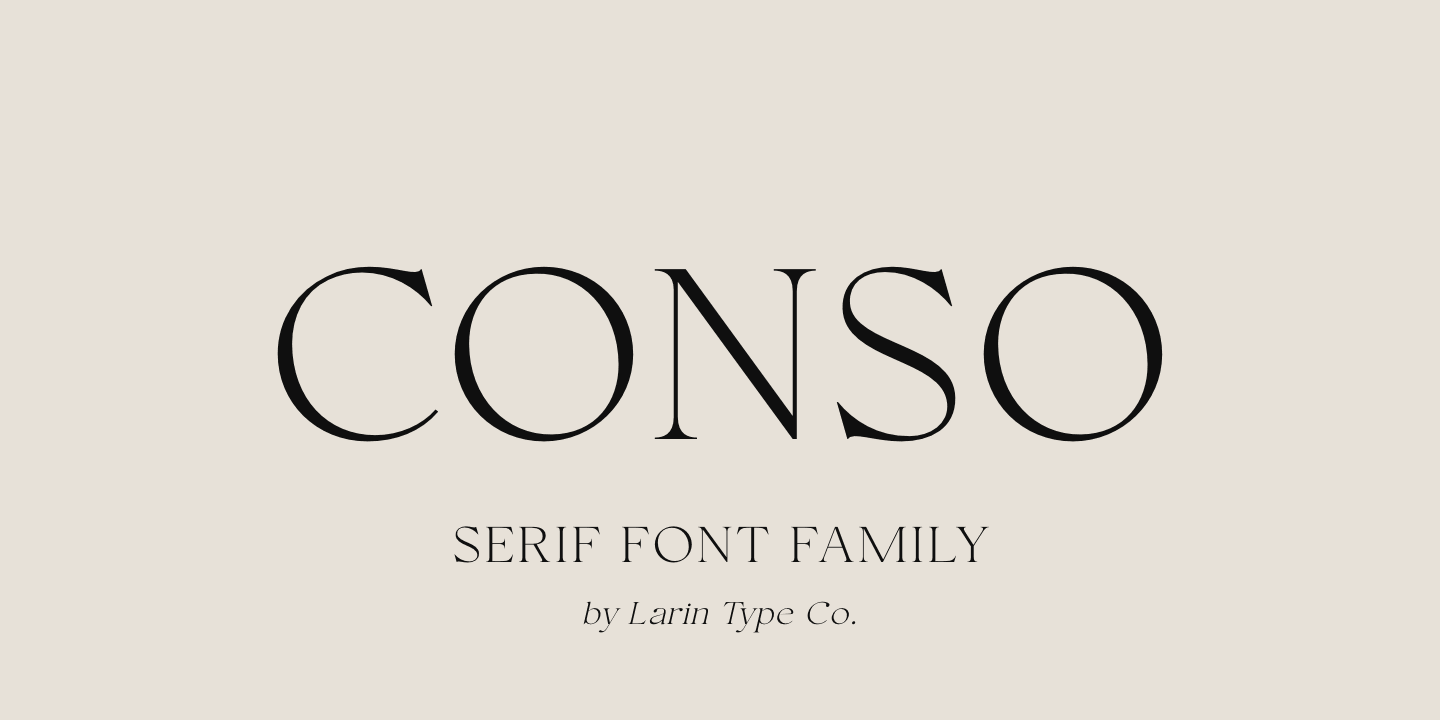
Conso Serif Font is perfect for academic publishing houses, prestigious law firms, traditional financial institutions, scholarly journal layouts, established university branding, classic literature editions, formal government documents, and distinguished professional service communications.
What makes Conso Serif Font truly exciting is its masterful balance of traditional authority and contemporary functionality that creates an atmosphere of scholarly excellence and institutional credibility through refined serif letterforms. This distinguished typeface features classical proportions with subtle modern refinements that instantly convey trustworthiness, intellectual rigor, and professional competence, making it the perfect choice for organizations that value tradition, demand credibility, and communicate with audiences who appreciate time-tested design principles and scholarly presentation.
The Conso Serif Font family encompasses thin, light, regular, medium, semibold, bold, and black weights, each available in upright and italic styles, along with small caps and traditional ligatures that enhance the scholarly appeal, providing designers with comprehensive tools for creating authoritative brand experiences and academic communications that resonate with educated audiences.
Educational institutions and professional service firms will discover that Conso Serif Font Free Download delivers the scholarly authority and institutional credibility needed to establish trust with discerning clients and academic communities. This versatile typeface excels in both extensive text applications and distinguished branding elements, maintaining its authoritative character while ensuring optimal readability across all scholarly contexts.
The font's refined construction demonstrates unwavering commitment to typographic excellence, with carefully balanced proportions that ensure dignified presence while maintaining superior legibility in complex academic documents. From research publications to institutional signage, this scholarly typeface maintains its professional dignity while providing the versatility needed for comprehensive academic and professional communications. Established institutions appreciate how this font effortlessly communicates tradition, expertise, and distinguished American academic design excellence through superior serif typography.